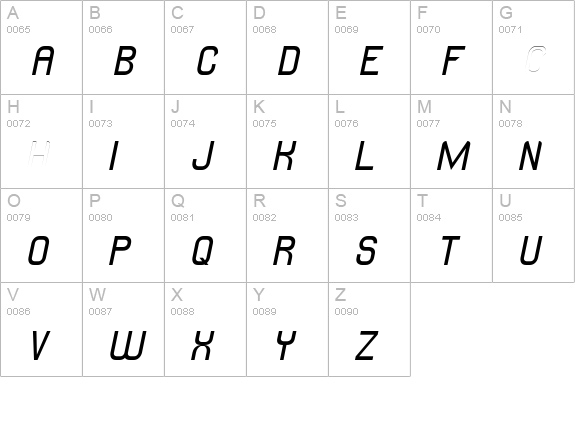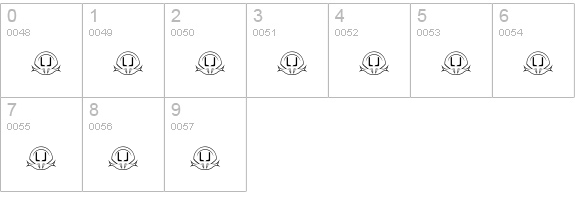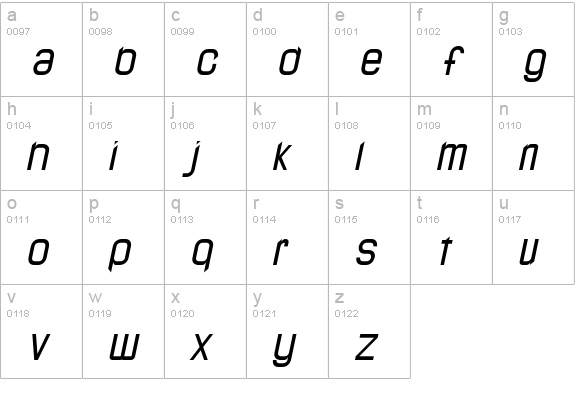
LJ Design Studios Lidea Italic Font Details
LJ Design Studios Lidea Italic is a distinctive, italic variant in the LJ typeface family \xE2\x80\x94 well suited to design and typography projects.
LJ Design Studios presents the exquisite Lidea Italic font, a true masterpiece in the world of typography. Designed to captivate and inspire, Lidea Italic is a stunning display of elegance and sophistication. With its graceful curves and delicate strokes, Lidea Italic effortlessly combines classic charm with a modern twist. This font exudes a sense of refinement and refinement, making it the perfect choice for any project that demands a touch of luxury. The Lidea Italic font offers a wide range of applications, from branding and packaging to editorial design and advertising. Its versatility allows it to shine in both digital and print mediums, ensuring that your message is conveyed with utmost style and impact. But what truly sets Lidea Italic apart is its accessibility. LJ Design Studios believes in the power of creativity and the importance of freely sharing it with the world. That is why Lidea Italic is available for free download at FontsMarket.com. This means that designers, creators, and enthusiasts alike can easily incorporate Lidea Italic into their projects, without any monetary constraints. LJ Design Studios is committed to fostering a community of artistic expression, where everyone can access high-quality tools to bring their visions to life. Whether you're designing a logo for a high-end fashion brand, creating an elegant wedding invitation, or crafting a compelling magazine spread, Lidea Italic is the perfect companion to elevate your design to new heights. Experience the beauty and versatility of Lidea Italic today. Download it for free at FontsMarket.com and unlock a world of endless possibilities for your creative endeavors. LJ Design Studios invites you to join the journey of artistic exploration and create stunning designs that leave a lasting impression.